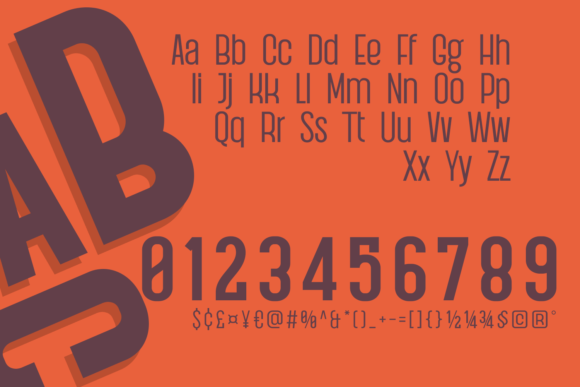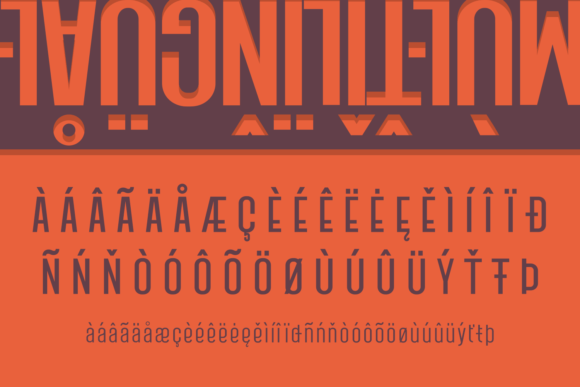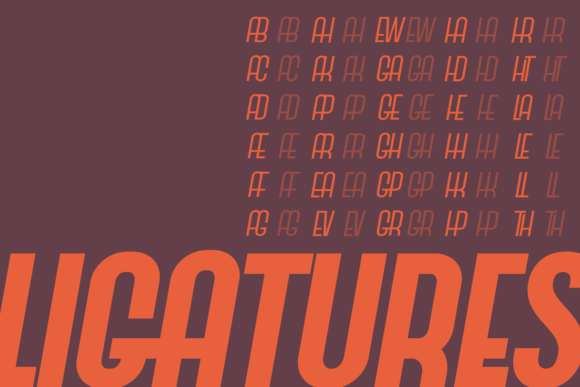
Introduction to Hypop Font Font
Fonts play a crucial role in design, and the Hypop Font font is a typeface that brings both character and versatility to any project. Whether you’re working on a branding project, a website, or a print design, the Hypop Font font offers a unique style that can elevate your work.
| 📌 Font Name | Hypop Font |
| 👤 Author | Factory738 |
HYPOP is a bold and condensed sans serif font family with a nostalgic vibe.
Combining retro and minimalist elements resulted in an elegant design The different weights give you a lot of options when it comes to choosing the right typographic color for your project.
The Hypop Font font is more than just a typeface – it’s a design tool that helps you communicate your message with style and clarity. Its unique character set and versatile design make it suitable for a wide range of applications, from elegant invitations to bold headlines.
With its carefully crafted letterforms and balanced proportions, the Hypop Font font ensures readability and visual appeal across all mediums.
What makes Hypop Font font special?
The Hypop Font font stands out with its unique design, exceptional readability, and versatility across various design applications.